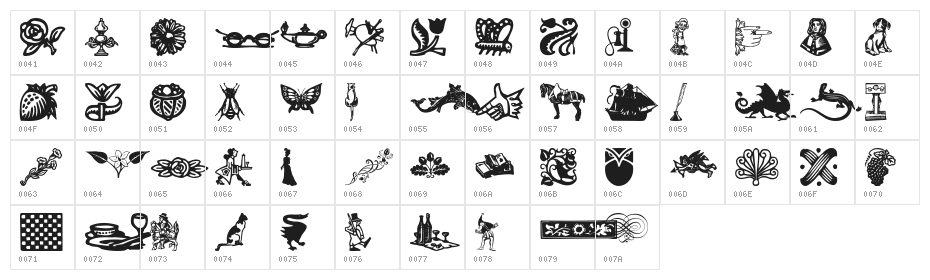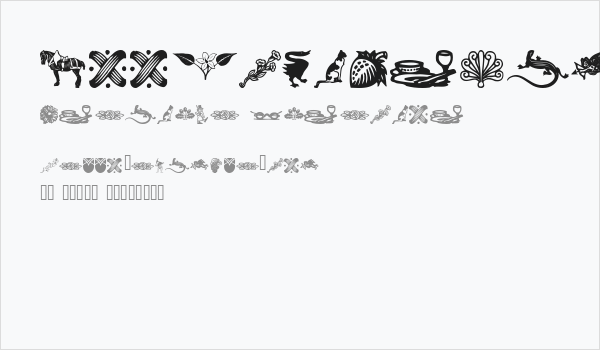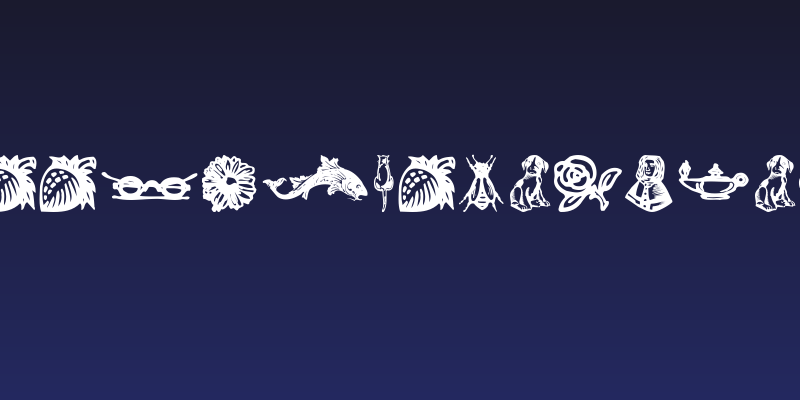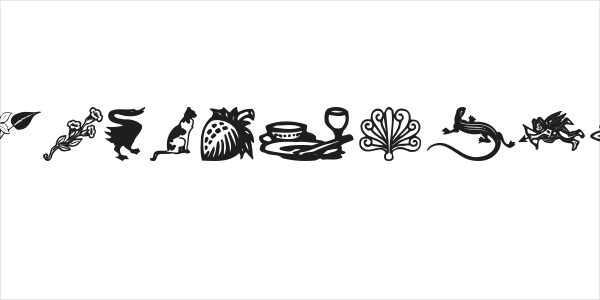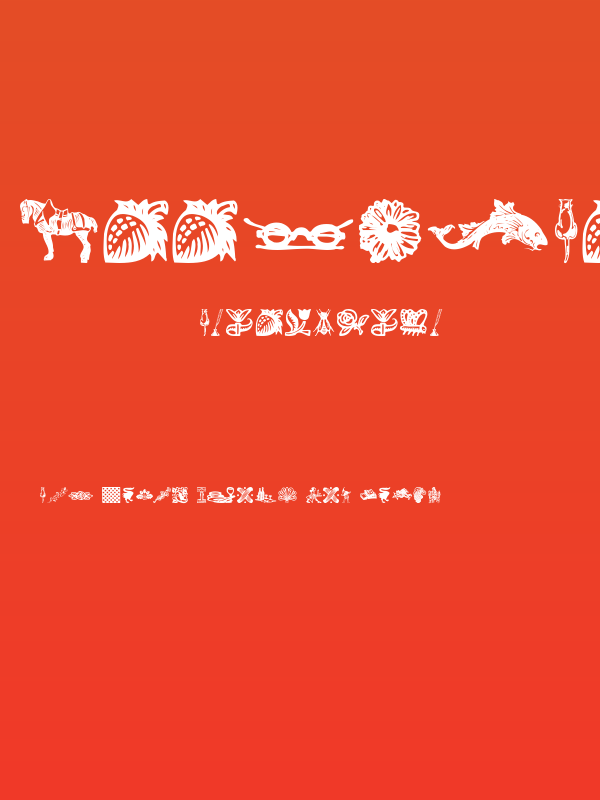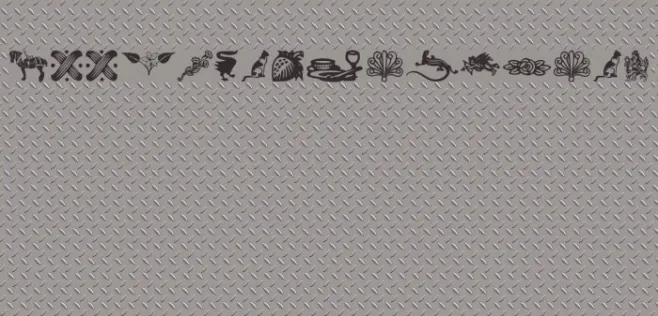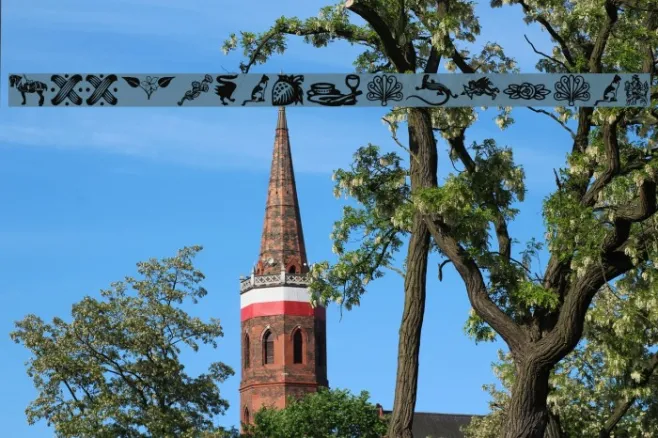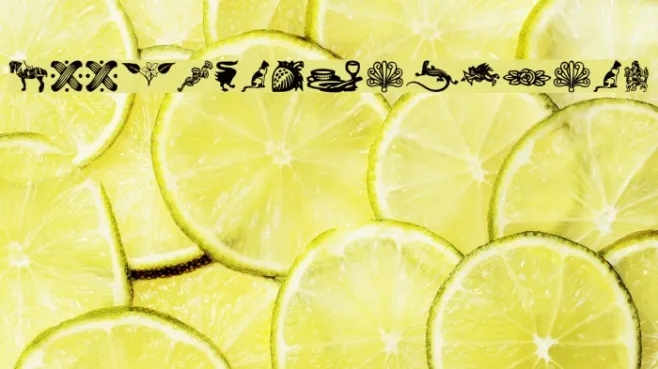
WoodcutOrnaments Font
WoodcutOrnaments Description
A decorative dingbat set featuring intricate woodcut-style ornaments, including flowers, animals, mythical creatures, people, and geometric borders. The designs are highly detailed with strong black-and-white contrast, evoking a vintage, hand-carved aesthetic reminiscent of historical printmaking.
| Overall Style | Vintage, Decorative |
| Use Case | Borders, embellishments, graphic accents, thematic dividers. |
| Proposed Projects | Book covers, invitations, certificates, decorative borders, vintage posters, branding for artisanal products. |